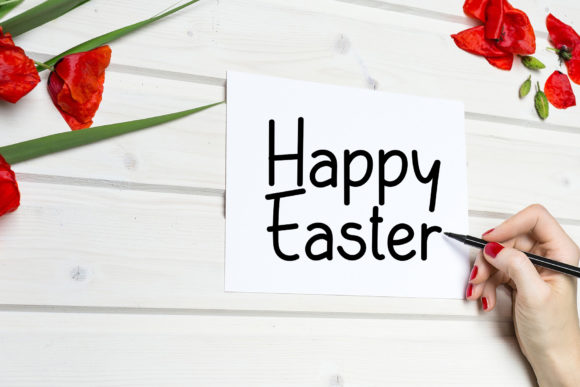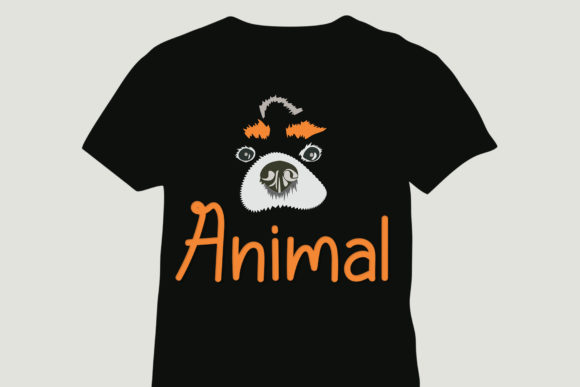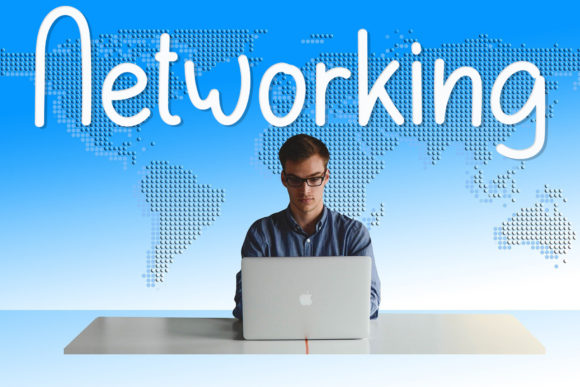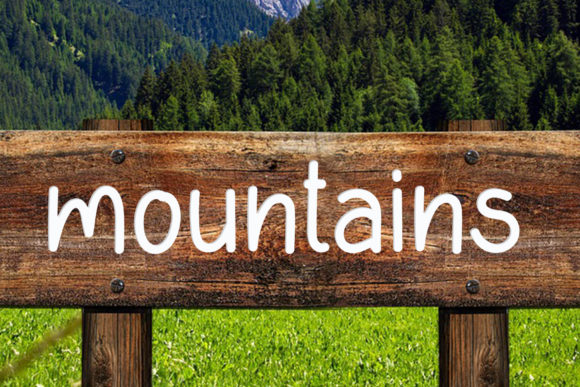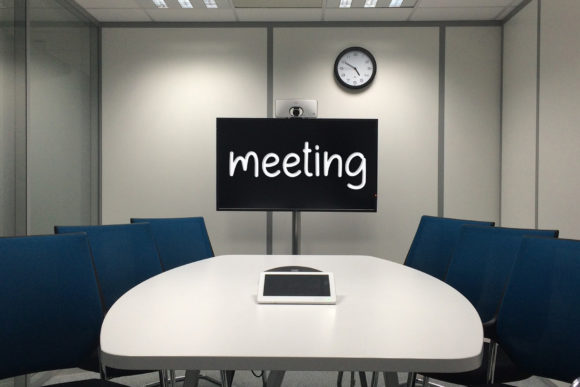
Arabella Font: Elevate Your Designs with a Fun and Friendly Display Font
Are you tired of using the same old fonts in your designs? Look no further than Arabella Font, a fun and friendly display font that’s sure to make your creations stand out. With its simple yet strong visual effect, Arabella Font is the perfect choice for designers and crafters looking to add a touch of personality to their work.
What is Arabella Font?
Arabella Font is a display font designed to make a statement. Its unique and playful design makes it perfect for use in a variety of projects, from social media graphics and posters to logos and branding materials. With its clean lines and simple shape, Arabella Font is easy to read and understand, making it a versatile choice for designers.
Key Features of Arabella Font
- Fun and Friendly Design: Arabella Font has a playful and approachable design that’s sure to capture the attention of your audience.
- Simple yet Strong Visual Effect: Despite its simplicity, Arabella Font has a strong visual effect that will instantly elevate your designs.
- Easy to Read: With its clean lines and simple shape, Arabella Font is easy to read and understand, making it perfect for use in a variety of projects.
- Versatile: Arabella Font can be used in a range of projects, from social media graphics and posters to logos and branding materials.
Benefits of Using Arabella Font
So why choose Arabella Font for your designs? Here are just a few benefits of using this fun and friendly display font:
- Adds Personality to Your Designs: Arabella Font is a great way to add a touch of personality to your designs and make them stand out from the crowd.
- Perfect for Creative Projects: If you’re working on a creative project, such as a social media graphic or poster, Arabella Font is a great choice.
- Easy to Pair with Other Fonts: Arabella Font is easy to pair with other fonts, making it a versatile choice for designers.
- Great for Logos and Branding Materials: Arabella Font is also a great choice for logos and branding materials, such as business cards and letterheads.
How to Use Arabella Font
Using Arabella Font in your designs is easy. Here are a few tips to get you started:
- Use it as a Display Font: Arabella Font is designed to be used as a display font, so use it to add a touch of personality to your headings and titles.
- Pair it with Other Fonts: Arabella Font is easy to pair with other fonts, so experiment with different combinations to find the one that works best for your design.
- Experiment with Different Sizes and Colors: Don’t be afraid to experiment with different sizes and colors of Arabella Font to find the one that works best for your design.
In conclusion, Arabella Font is a fun and friendly display font that’s perfect for designers and crafters looking to add a touch of personality to their work. With its simple yet strong visual effect, Arabella Font is sure to make your creations stand out from the crowd. So why not give it a try and see the difference it can make?
Whether you’re working on a social media graphic, poster, logo, or branding material, Arabella Font is a great choice. Its versatility, ease of use, and unique design make it a must-have font for any designer or crafter.